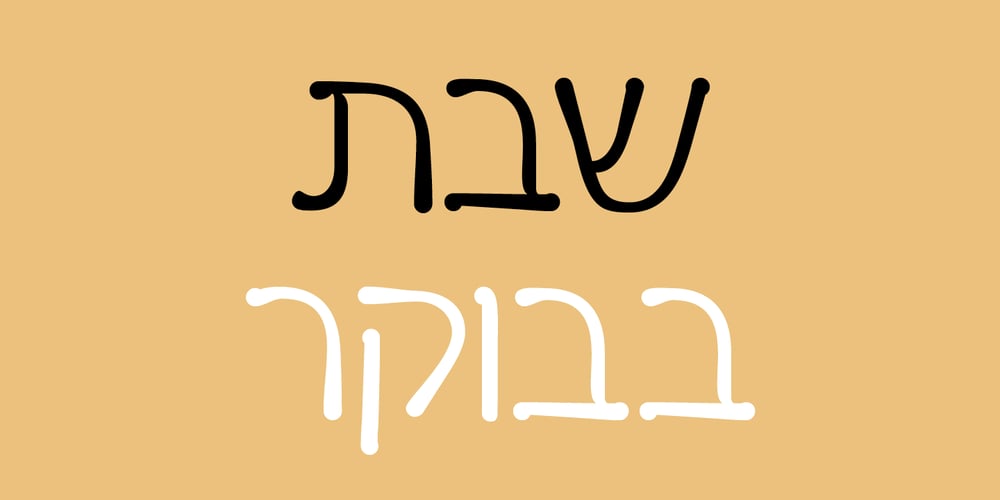
Shishki MF Font Family was designed by Uzi Batish and published by Masterfont. Shishki MF contains 3 styles and family package options. So friendly yet so naughty.A practical font family with 3 weights for all your needs: headlines, body text, signage etc. High legibility at small sizes.